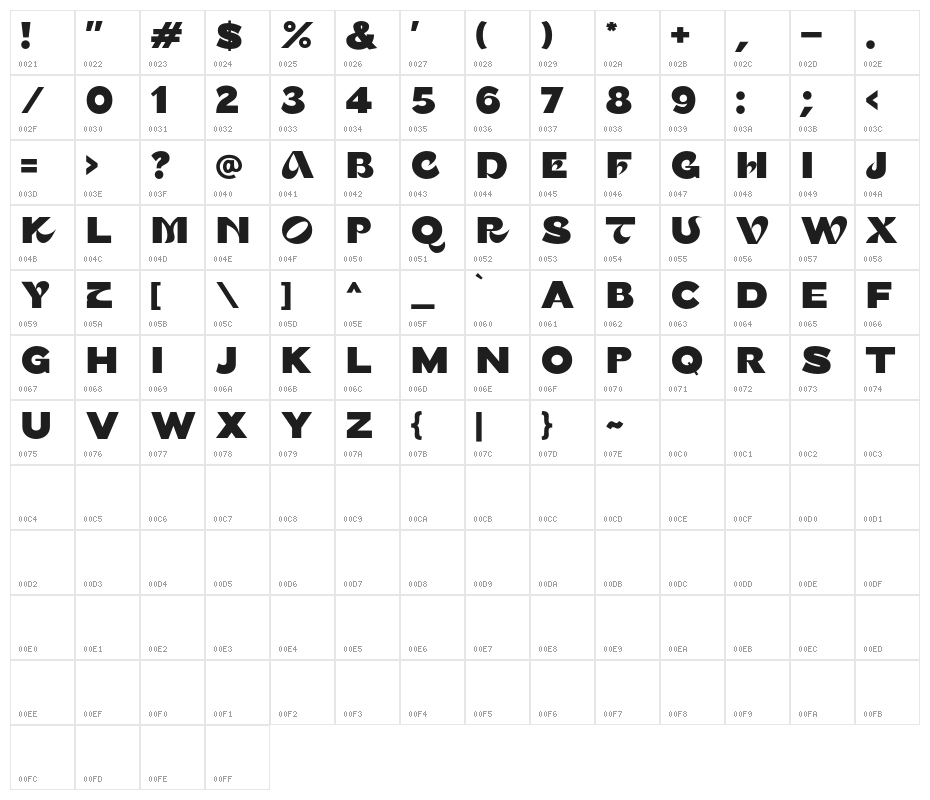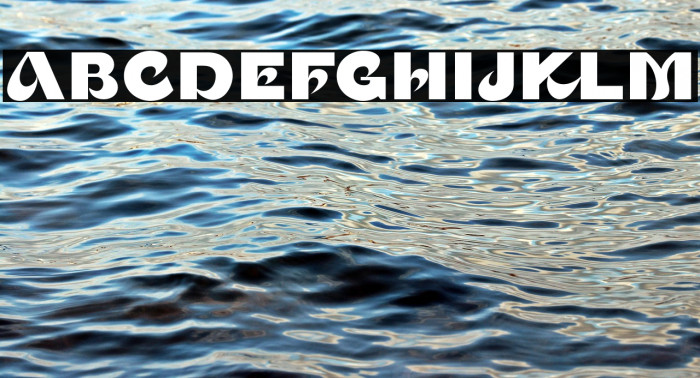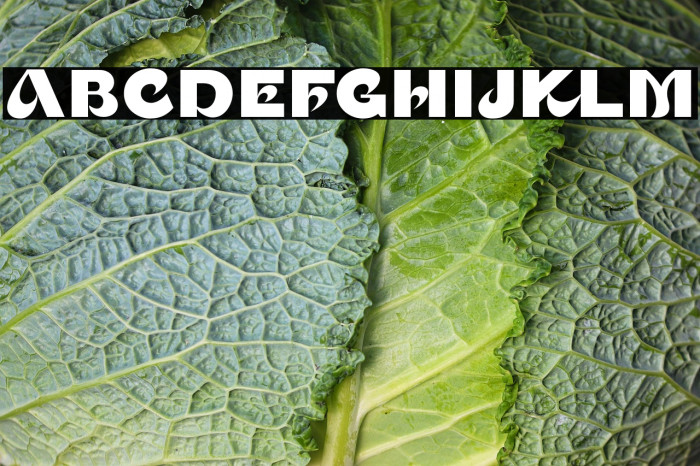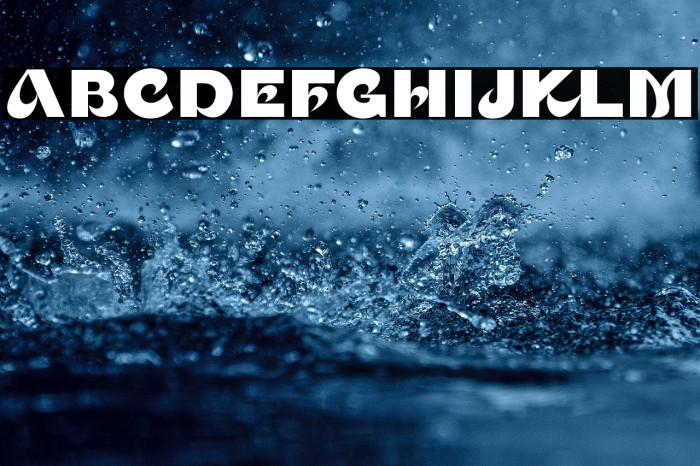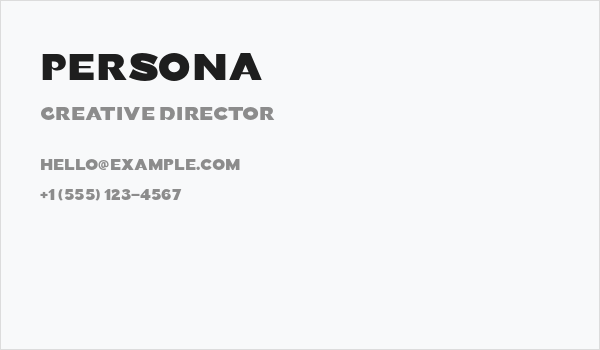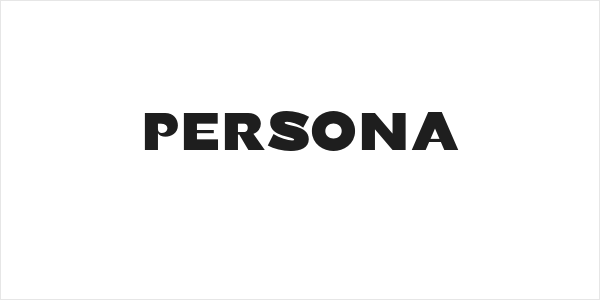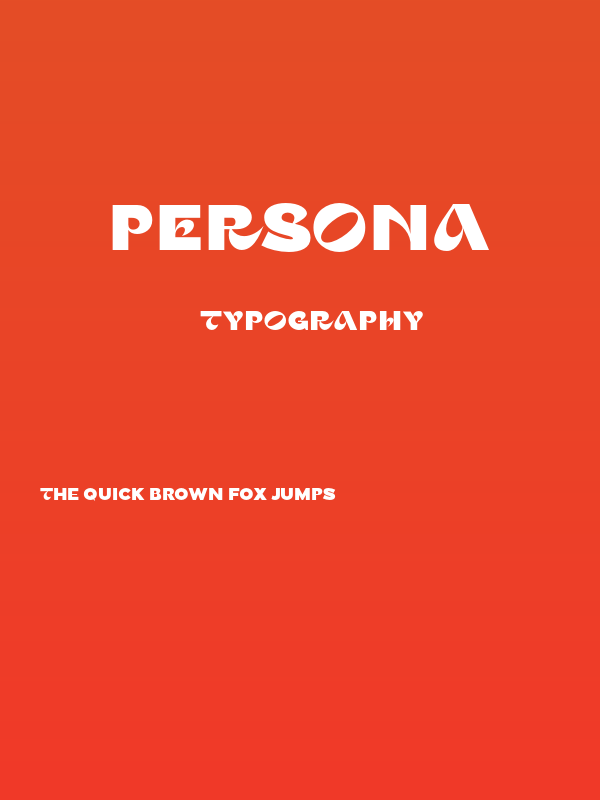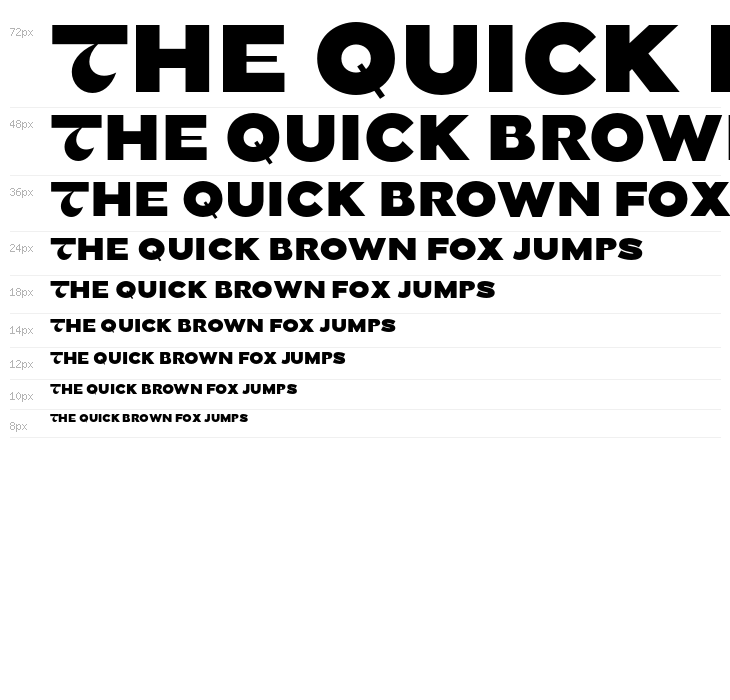
Persona Font
Persona Description
This font features a bold and striking design with a unique blend of geometric and decorative elements. The uppercase letters exhibit a strong presence with thick strokes and subtle curves, creating a dynamic and eye-catching appearance. The lowercase letters maintain a consistent style, complementing the uppercase with their bold structure. Numbers are equally bold, ensuring readability and impact. Special characters are designed with the same attention to detail, making them suitable for various applications. The overall design is modern and versatile, ideal for projects that require a strong visual impact.
| Proposed Projects | Ideal for branding, advertising, posters, and headlines where a bold statement is needed. |